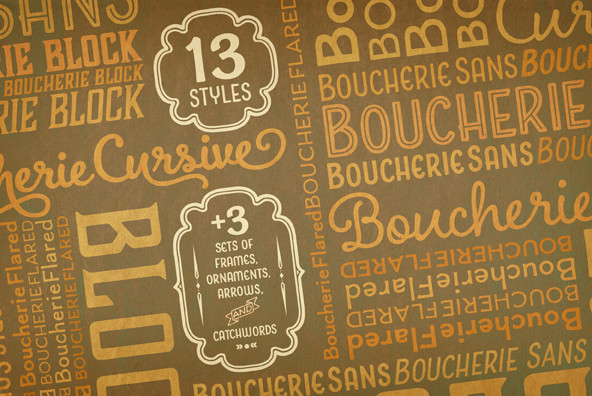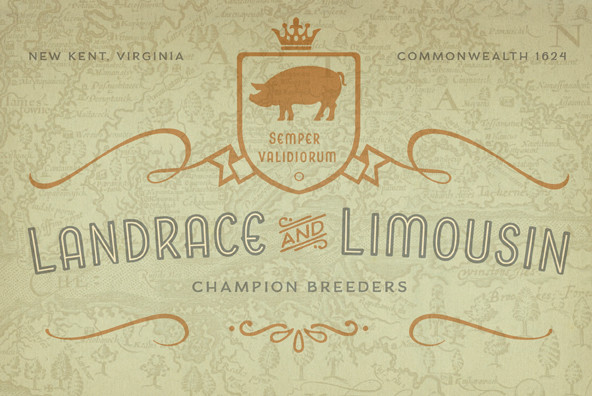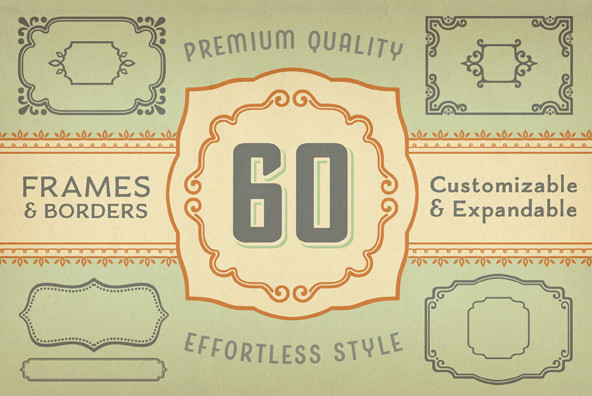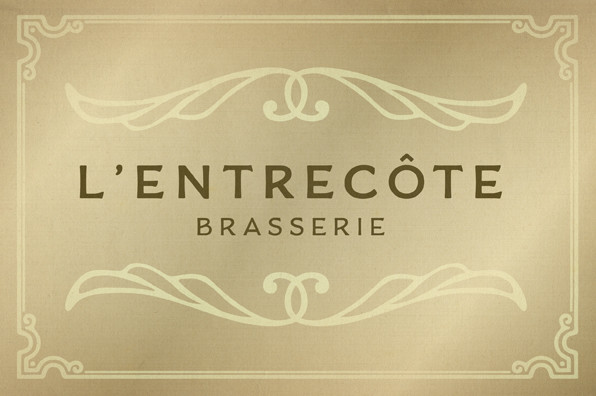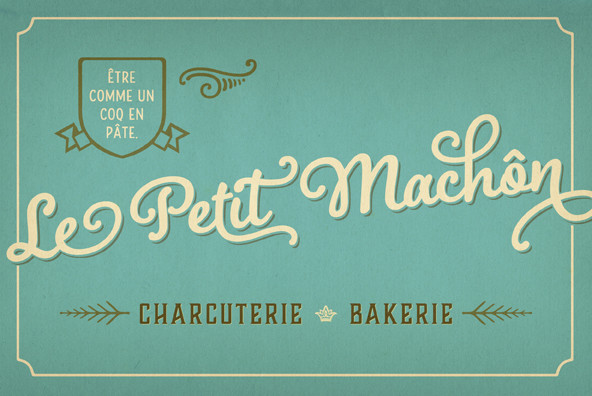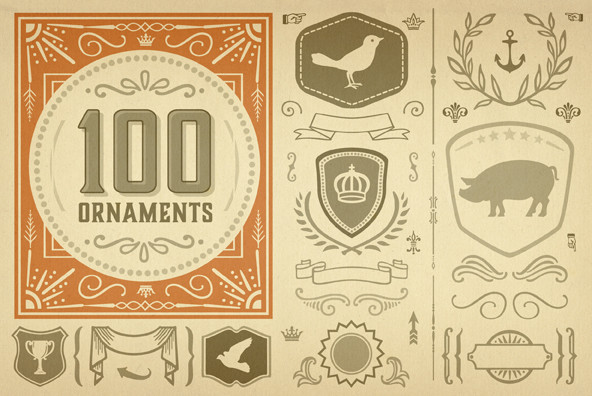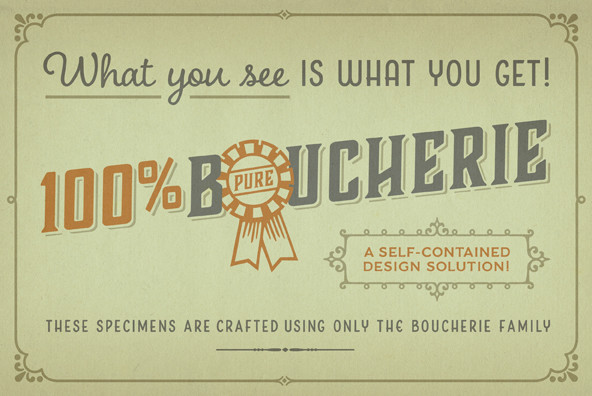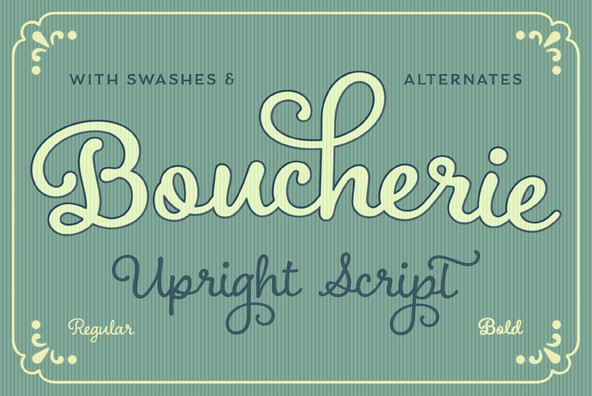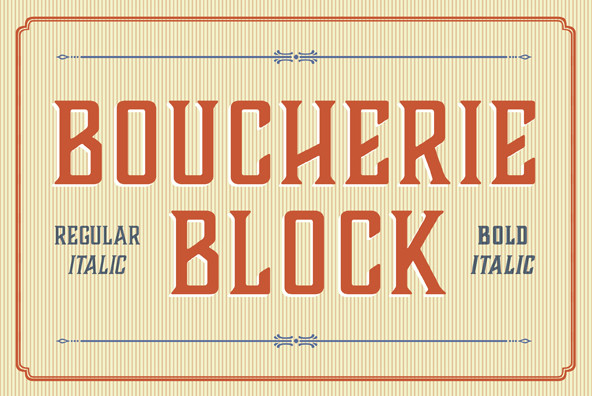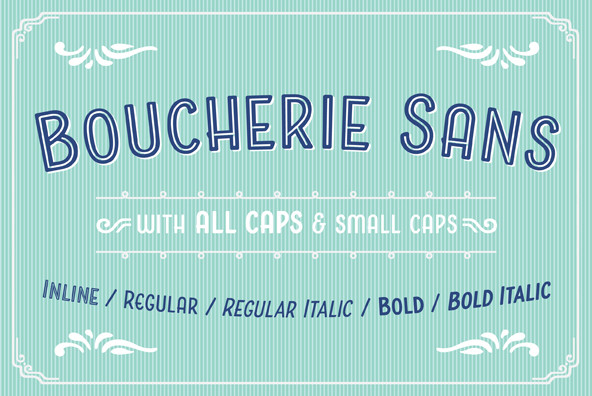
Boucherie Collection Font
Finding fonts that work together to capture the aesthetic of an age is one of the biggest challenges designers face. Doing so without resorting to tired cliché fonts is even harder. Boucherie captures the lively essence of 19th-century French advertising typography with a collection of original designs, rather than strict historical revivals. Use Boucherie to create typographic compositions that are at once fresh and familiar.
With Boucherie, Laura Worthington provides four distinct display types - plus ornaments, catchwords, and frames - that beautifully complement each other while expanding the utility of the Charcuterie collection on which they are based. Details like low, slanted horizontals and generously proportioned bowls recur throughout both Boucherie and Charcuterie, providing subtly familial visual cues.
While Charcuterie featured rustic hand-drawn faces based on Laura's impressions of 19th-century French type and lettering, Boucherie offers the reverse: smoothed, polished, cleaned-up versions of those impressions.